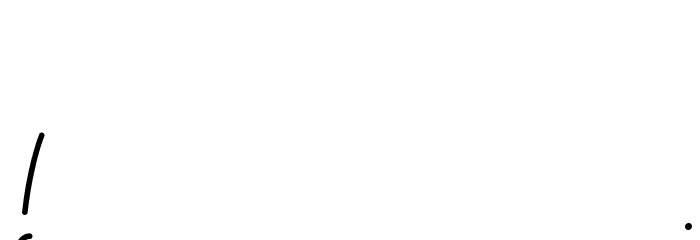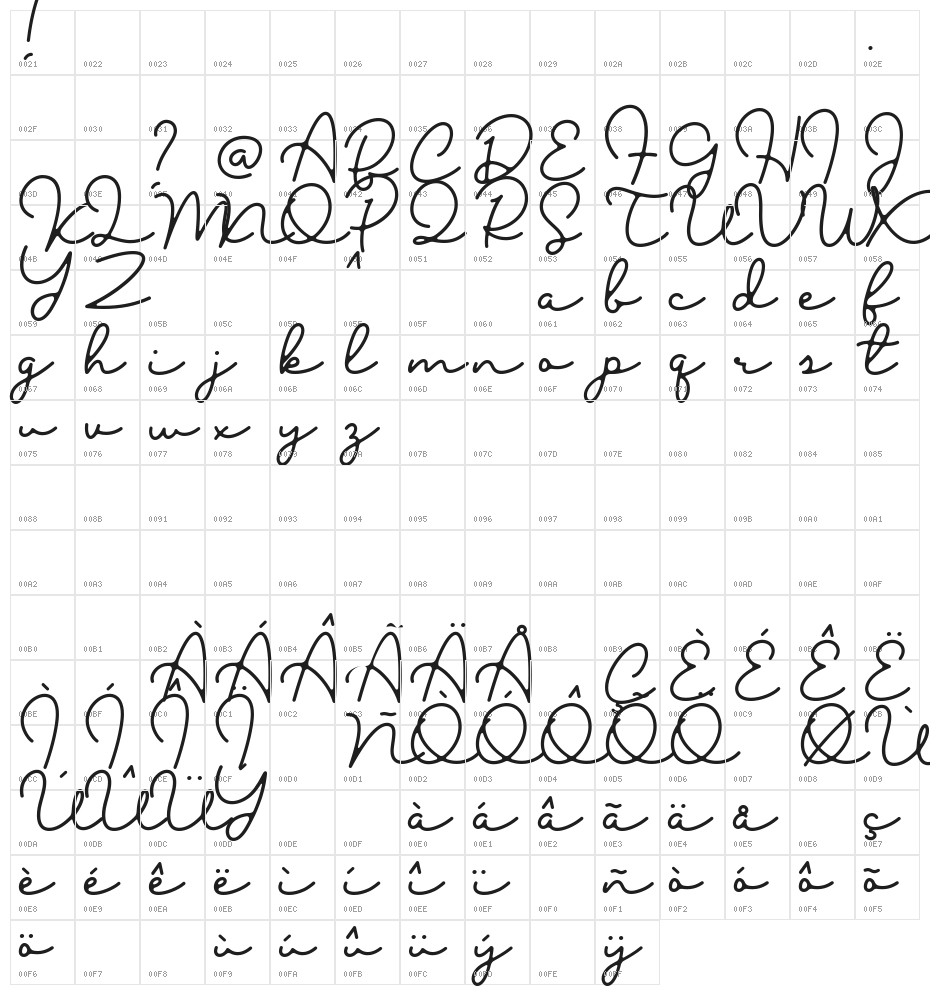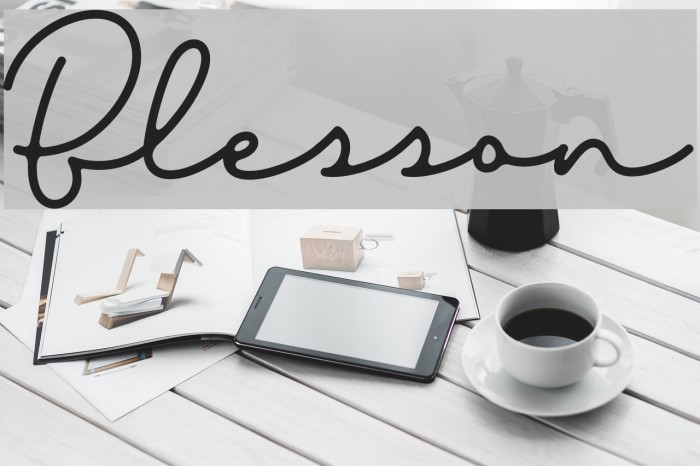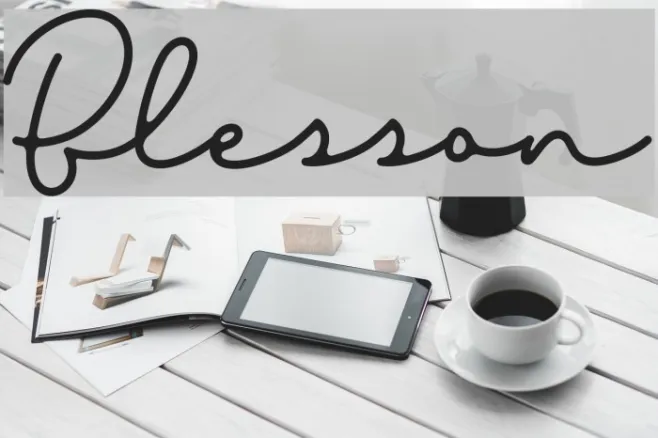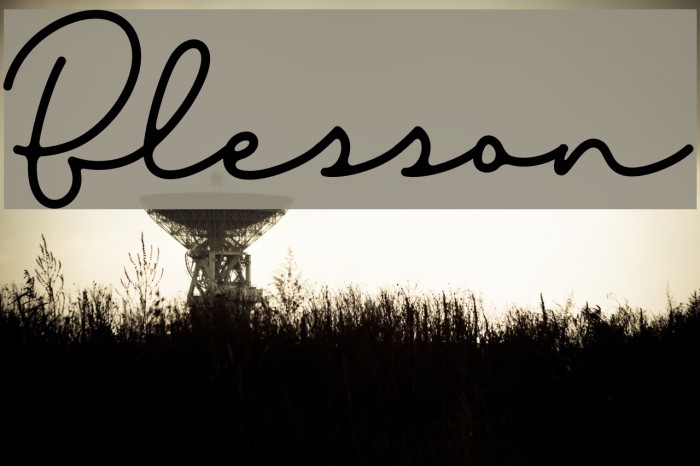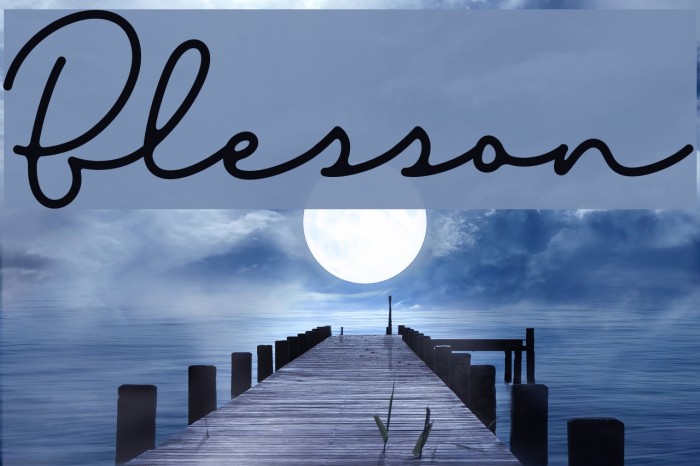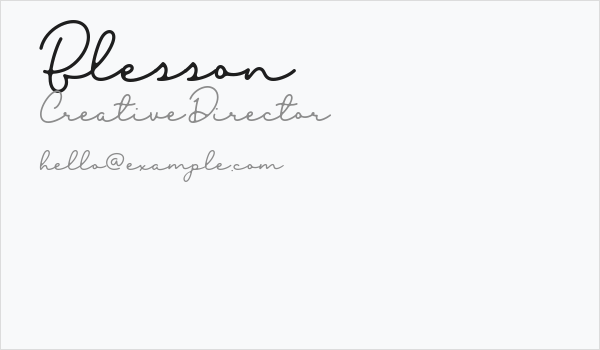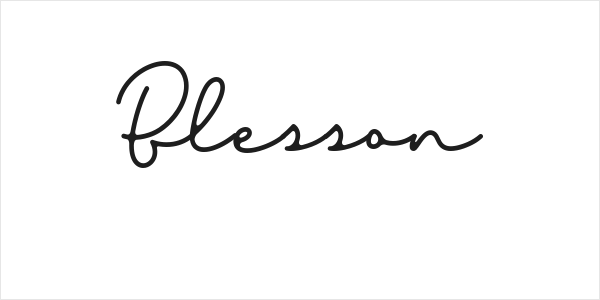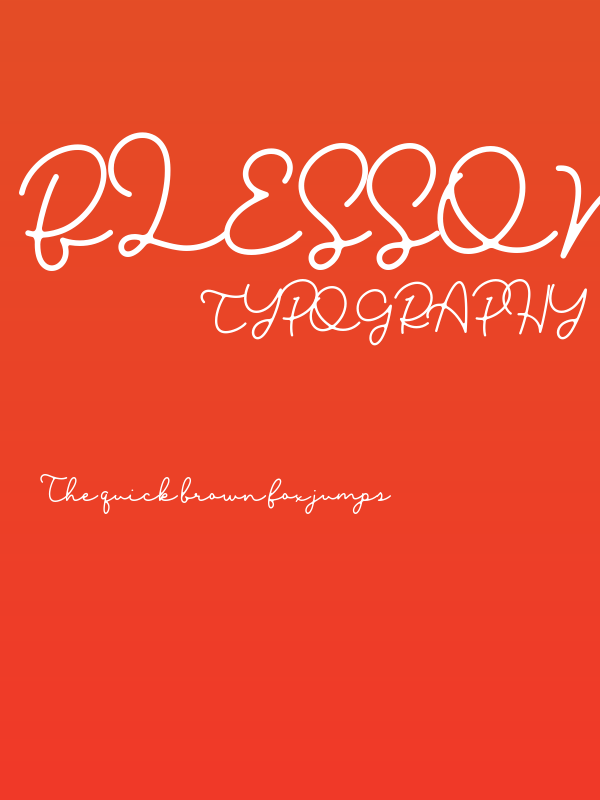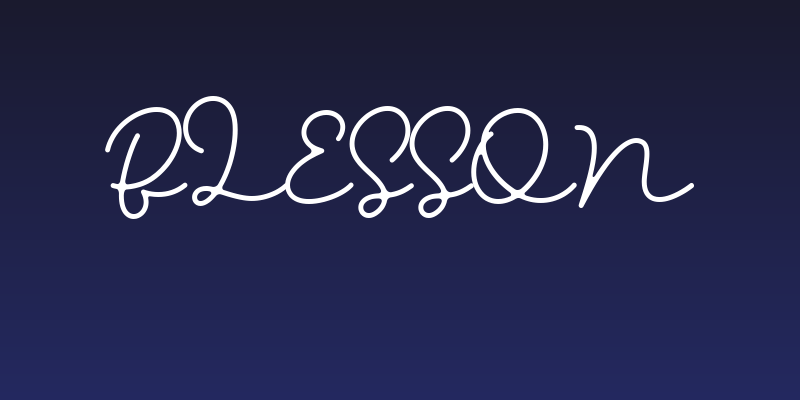
Blesson Font
Blesson Description
This font features a flowing, cursive style that mimics elegant handwriting. The characters are interconnected, creating a seamless and fluid appearance. The uppercase letters are slightly more embellished, with loops and curves that add a touch of sophistication. The lowercase letters maintain a consistent flow, enhancing readability while preserving the script's artistic flair. The numerals and special characters are crafted to match the overall aesthetic, ensuring a cohesive look across all text elements. This font is ideal for projects that require a personal, handwritten touch, such as invitations, greeting cards, and branding materials.
| Proposed Projects | Ideal for wedding invitations, personal branding, greeting cards, and elegant stationery. |